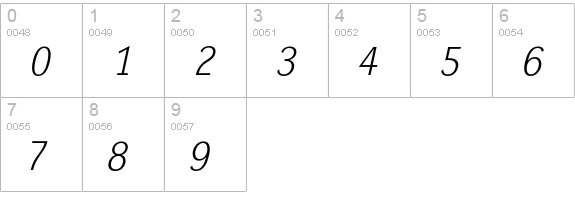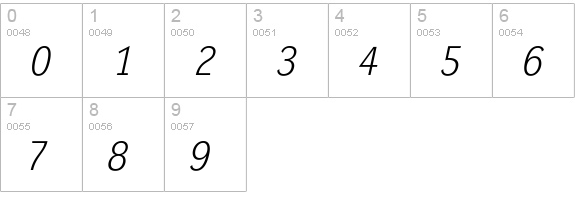
Dynamo Italic L is a distinctive, italic variant in the Dynamo typeface family \xE2\x80\x94 well suited to design and typography projects.
Dynamo Italic L font is a sleek and modern typeface that exudes elegance and sophistication. Its italic styling adds a touch of flair and creativity to any design project. The clean lines and sharp angles of this font make it perfect for both headings and body text, ensuring readability while still making a statement. What's even better is that Dynamo Italic L font is available for free download at FontsMarket.com. This means you can access this stylish and versatile font at no cost, making it a fantastic choice for designers, creatives, and anyone looking to elevate their projects with a touch of class. Stand out from the crowd with Dynamo Italic L font and take your designs to the next level today!